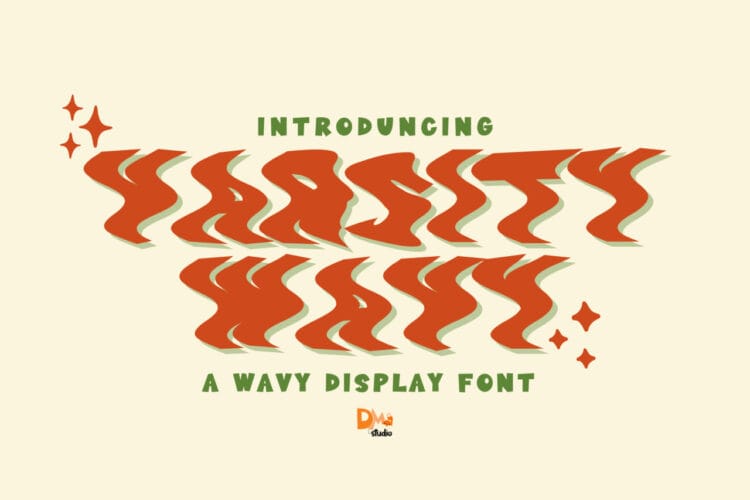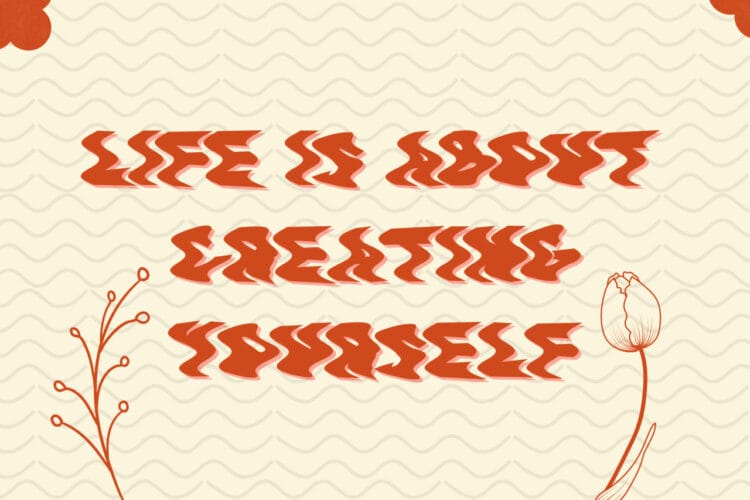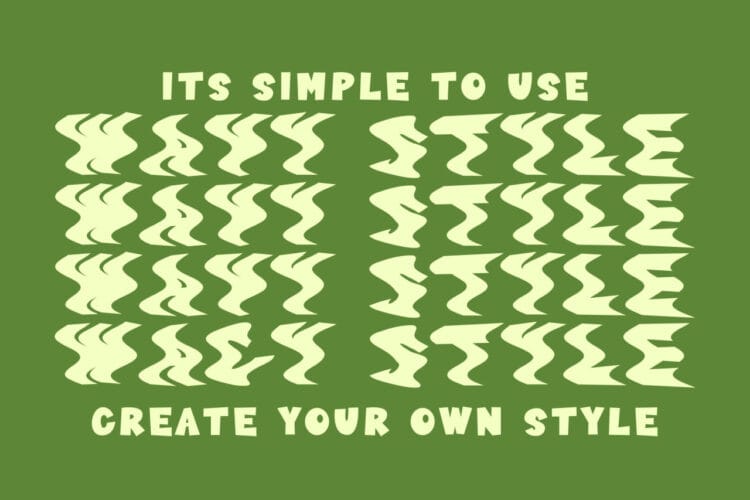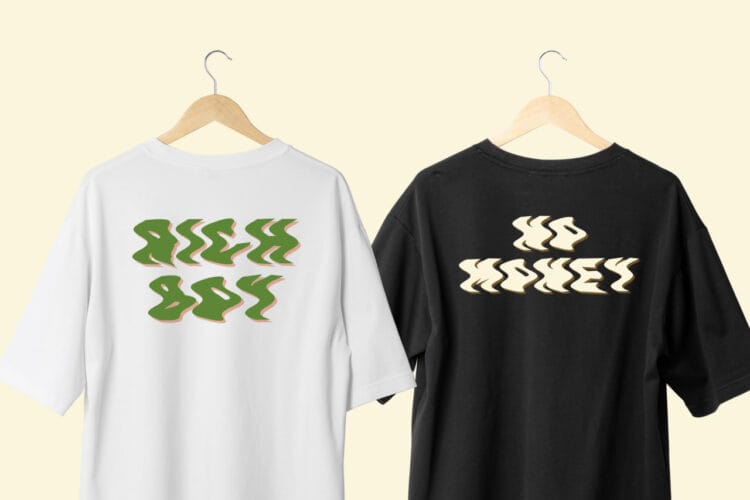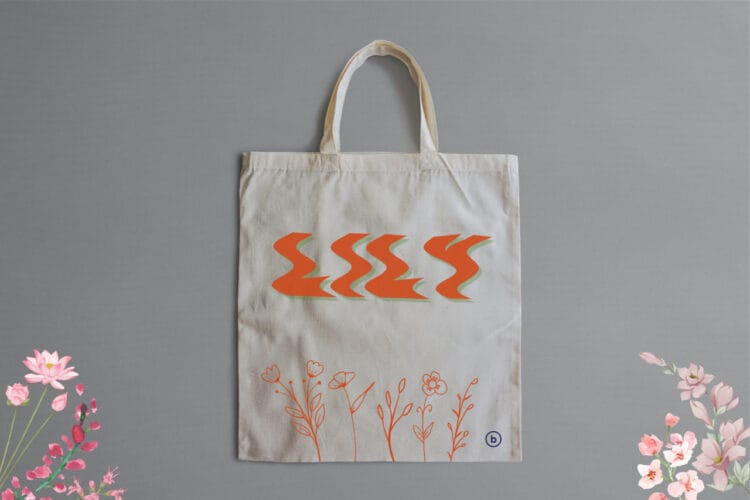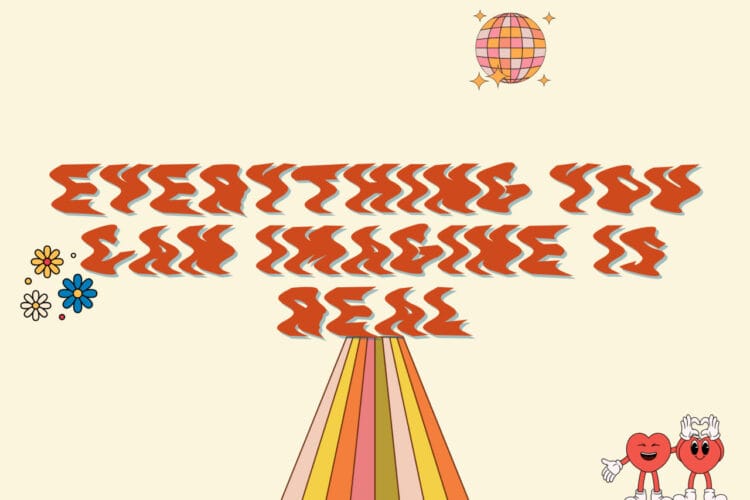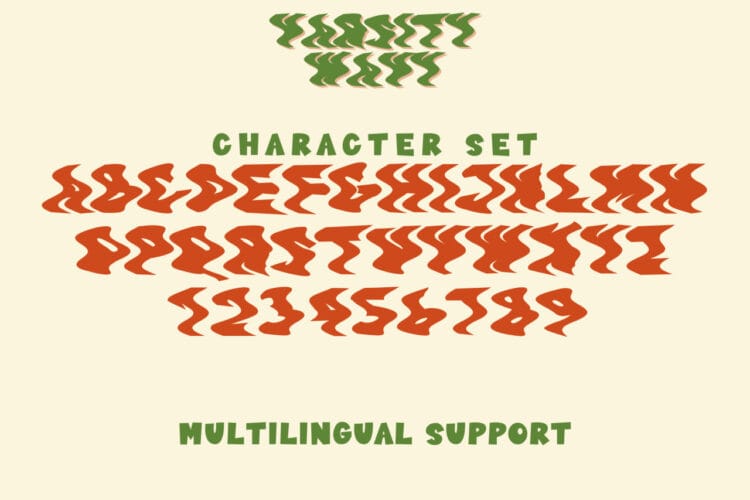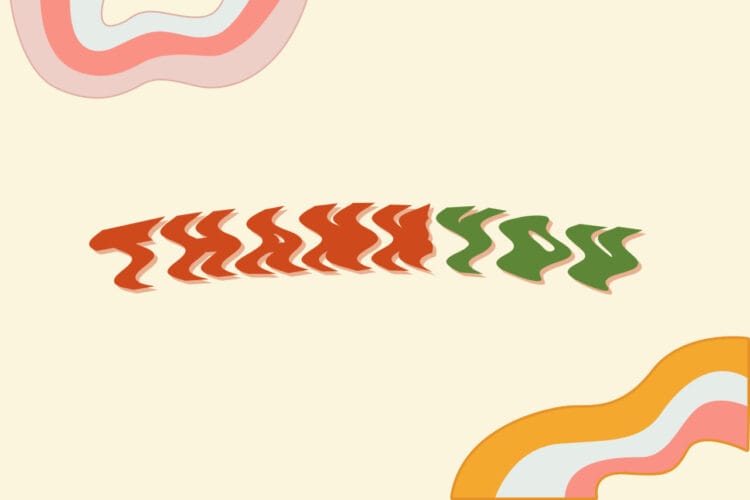
Meet the Varsity Wavy Font
The Varsity wavy font blends classic college spirit with a modern ripple. Letters feel bold, rounded, and fun. Because each stroke flows gently, your words gain motion without extra effects. Use it for team tees, banners, stickers, thumbnails, and sport-themed merch. Moreover, its compact rhythm saves space while staying clear on mobile. Therefore, short phrases turn into eye-catching badges fast.
Where the Varsity wavy font shines
Set names, jersey numbers, and pep phrases. For example, try “Go Team,” “Game Day,” or city initials. Then add outlines, shadows, or patch textures to echo the athletic vibe. Since spacing is tuned for headlines, layouts come together in minutes. As a result, your shop can ship full sets for seasons, camps, and school events.
Fast setup, bold results
Design tips for wavy varsity style
Keep copy short and let the letterforms lead. Pair the Varsity wavy font with a clean sans for body text. Meanwhile, try double strokes, inner lines, or stitch-edge borders for depth. Because the shapes are rounded, candy gradients and felt textures work beautifully. Plus, use light grain for a vintage fieldhouse feel.
Why choose the Varsity wavy font
You want school spirit with a fresh twist. This typeface delivers. It grabs attention in crowded feeds, speeds production, and scales from stickers to banners. Also, it holds color and texture well, so mockups look polished with little effort. However, remember its sweet spot: short titles, names, and jersey-style numbers. When layouts stay simple, results feel bold, friendly, and memorable.